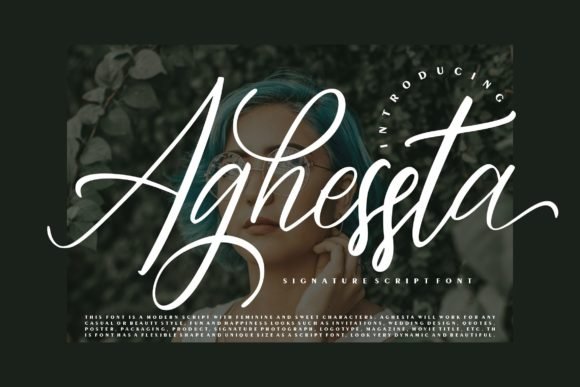
The Art of Elegant Typography: Unveiling the Aghessta Script Font
Have you ever stared at a blank page, struggling to find the perfect font to bring your design vision to life? That’s exactly what happened to me last week, when I was working on a high-end branding project. I wanted to create a sense of luxury and sophistication, but nothing seemed to fit the bill. That’s when I stumbled upon the Aghessta Script Font, and everything changed.
The Aghessta Script Font is a stunning calligraphy typeface that exudes elegance and refinement. Its flowing characters dance along the baseline, adding a touch of whimsy and sophistication to any design project. Whether you’re creating a wedding invitation, a luxury brochure, or a high-end logo, this font is sure to elevate your design to new heights.
As a designer, you know that the right font can make all the difference in creating a memorable and impactful design. The Aghessta Script Font is a valuable addition to any designer’s toolkit, offering a unique and luxurious look that’s sure to impress clients and audiences alike.
Aghessta Script Font Key Features
- Font Style: Aghessta Script is a beautiful, elegant script font perfect for adding a touch of sophistication to your designs.
- Character Set: The font includes a wide range of characters, including uppercase and lowercase letters, numbers, punctuation marks, and special characters.
- Unique Characteristics: Aghessta Script features connected letterforms, swashes, and flourishes, making it ideal for creating beautiful, handwritten-style text.
Aghessta Script Font Review
I recently had the chance to work with the Aghessta Script Font, and overall, I’m quite impressed. ✨ One of the things that stands out is its elegant, handwritten feel, which adds a touch of sophistication to any design project. The font’s fluid connections and subtle flair make it perfect for creating a sense of whimsy and romance.
Another aspect that I appreciate is the font’s versatility. ✨ It works well in both digital and print applications, and its multiple weights and styles allow designers to experiment with different moods and atmospheres. From invitations to branding materials, Aghessta Script Font is a great choice for anyone looking to add a personal touch to their design.
- ⚠️ Limited character set: Aghessta Script Font is a script font, which means it’s not ideal for large blocks of text or technical writing. While it’s great for headings and short quotes, it may not be the best choice for lengthy passages.
- ⚠️ Not suitable for small font sizes: The font’s connections and flair may become lost or difficult to read when used at small font sizes.
Overall, I think Aghessta Script Font is a wonderful addition to any designer’s toolkit. While it may have some limitations, its unique charm and versatility make it a great choice for designers looking to add a touch of personality to their work.
Aghessta Script Font is perfect for creating elegant and sophisticated designs, such as:
- Brand logos and typography
- Editorial and publishing designs